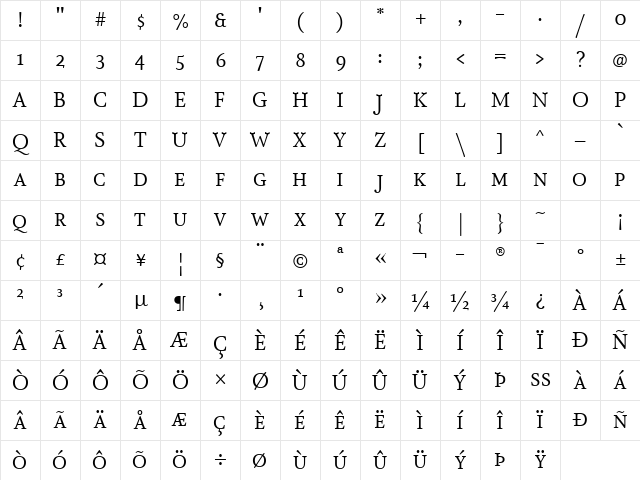
Complete AtmaSerif-BookRomanQC Regular glyph index. Displaying only characters natively supported by AtmaSerif-BookRomanQC Regular font.
AtmaSerif-BookRomanQC carries the refined structure of traditional serif typography, with bracketed terminals and considered proportions that communicate credibility and craft.
Pro Tip: Use AtmaSerif-BookRomanQC for editorial body copy and considered headline work. Pair with a neutral sans for UI elements or captions to create a classic hierarchy.